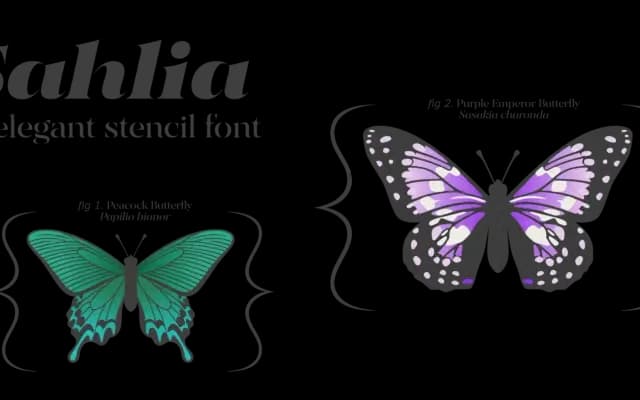
Sahlia
A high-contrast stencil serif where extreme stroke contrast causes thin strokes to dissolve entirely, giving the letters a worn, almost accidental elegance across five weights.
Designed by Alanna Munro and published in 2023, Sahlia takes an unconventional approach to the stencil form: rather than slicing away portions of each letter, the extreme weight contrast erases the thin strokes altogether, producing shapes that read as structured yet organic. Lighter weights carry a graceful, airy quality; heavier settings grow dramatic whilst retaining what the foundry calls a luxurious tone. Stylistic sets offer teardrop terminals, an alternate crossbar and a lambda wavy bar, extending the expressive range without disturbing the typeface's core character.
Sahlia is categorised as display owing to its extreme stroke contrast and stencil construction, where thin strokes dissolve entirely rather than being cut away in the conventional stencil manner, producing sharp high-contrast serifs suited to headline and editorial use rather than text setting.